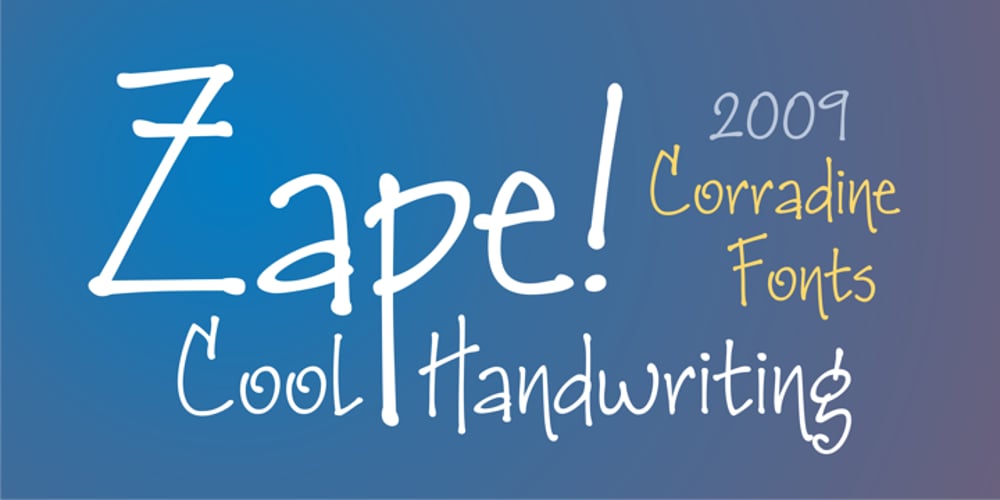
Zape Font Family was designed by Manuel Eduardo Corradine and published by Corradine Fonts. Zape contains 4 styles and family package options. Based in Manuel Corradine’s handwriting, Zape is a very spontaneous font. It could be used in almost any informal project.